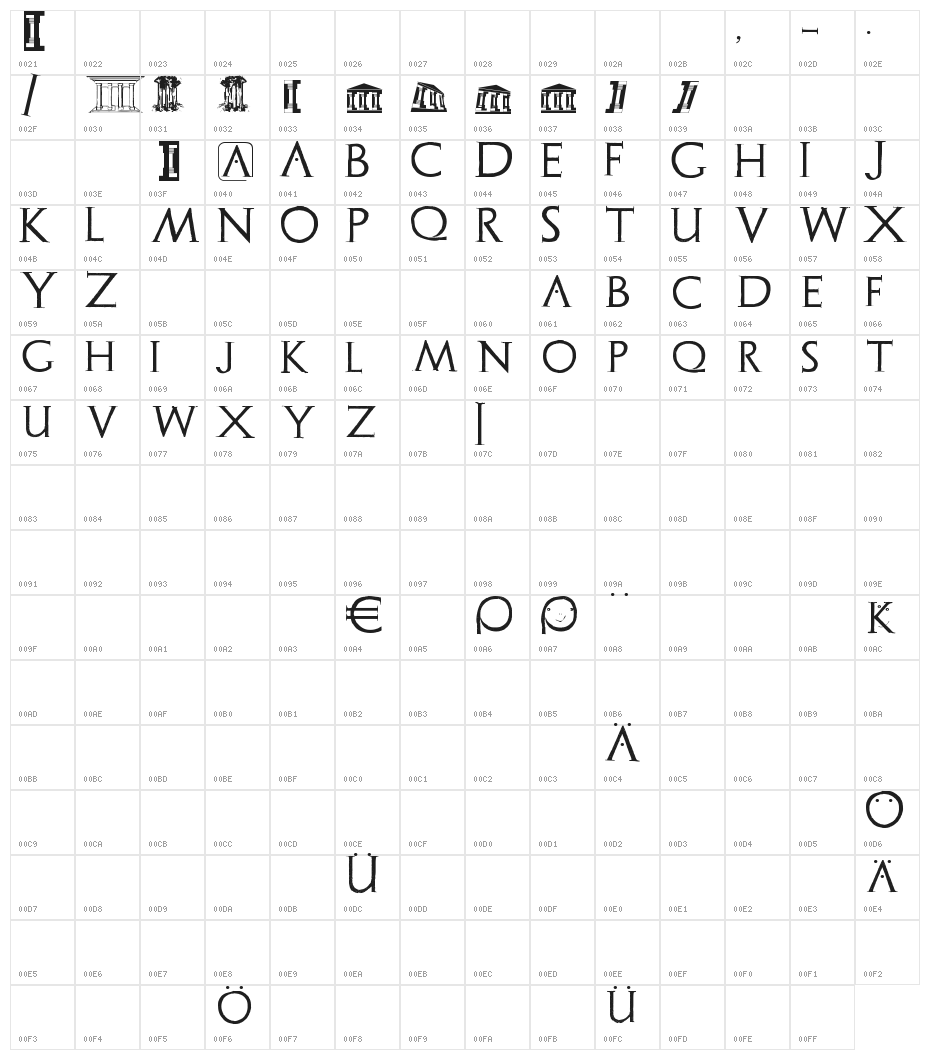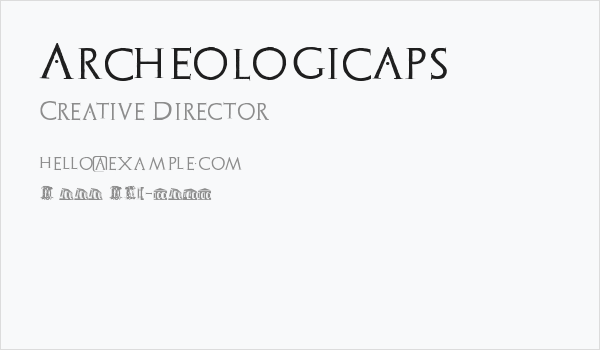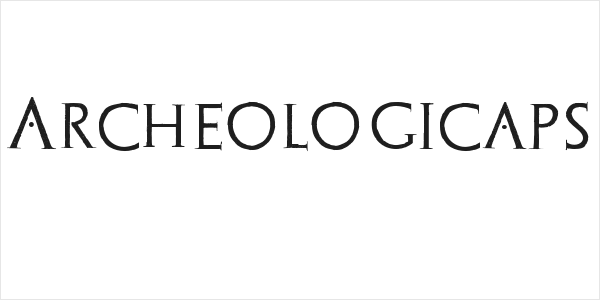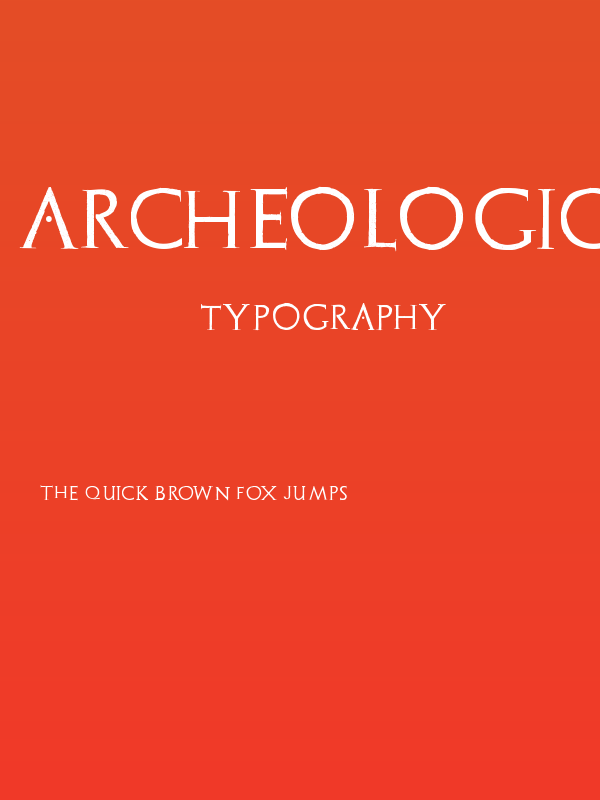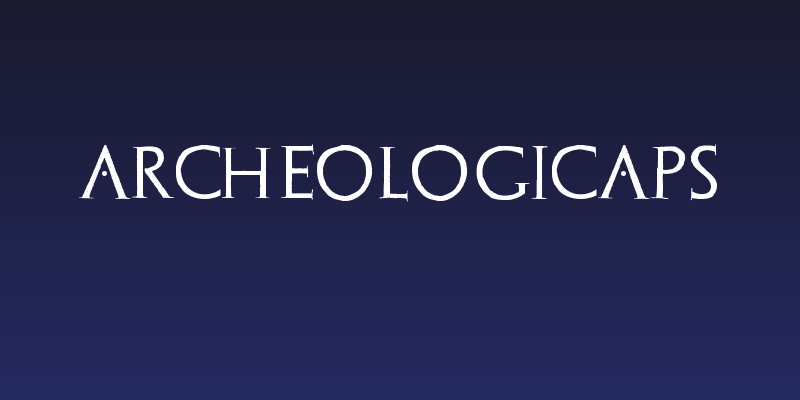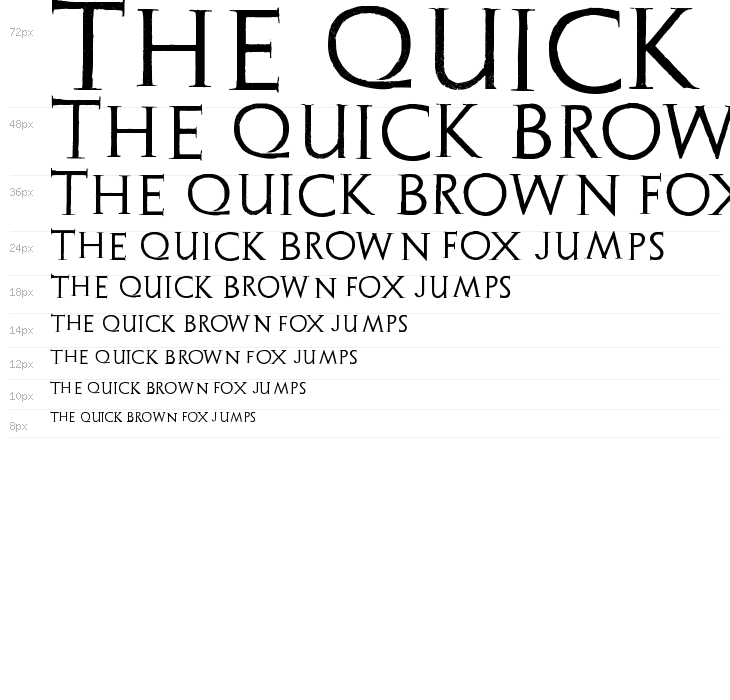
Archeologicaps Font
Archeologicaps Description
This font is inspired by ancient architectural elements, featuring a classic and historical aesthetic. The uppercase letters are characterized by sharp, angular serifs and a slightly uneven stroke that mimics the texture of stone carvings. The overall design evokes a sense of antiquity and grandeur, reminiscent of ancient Roman or Greek inscriptions. The characters are well-spaced, allowing for readability while maintaining an artistic flair. The inclusion of architectural symbols further enhances its thematic connection to historical and archeological contexts.
Overall StyleClassic
Proposed ProjectsIdeal for projects related to history, archaeology, or classical studies, such as museum exhibits, educational materials, or themed event promotions.